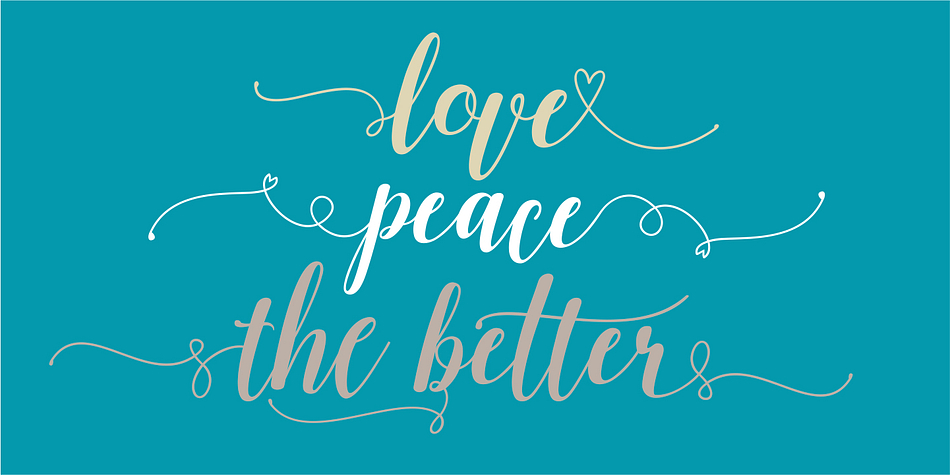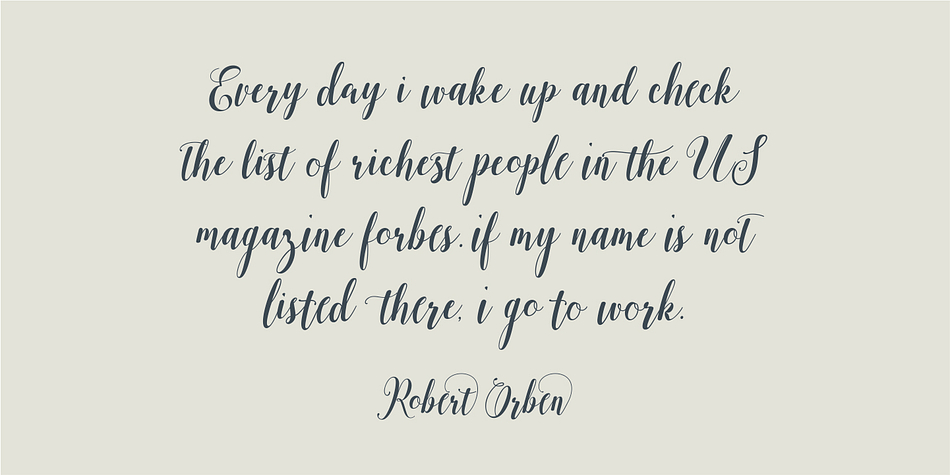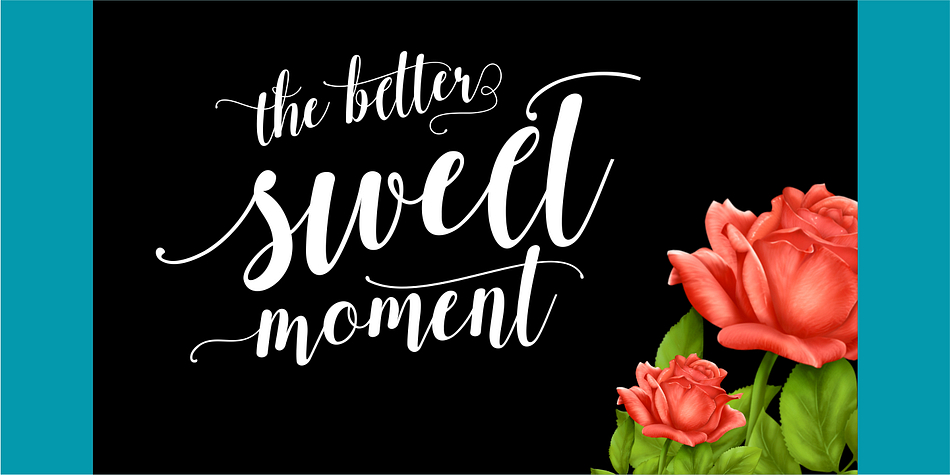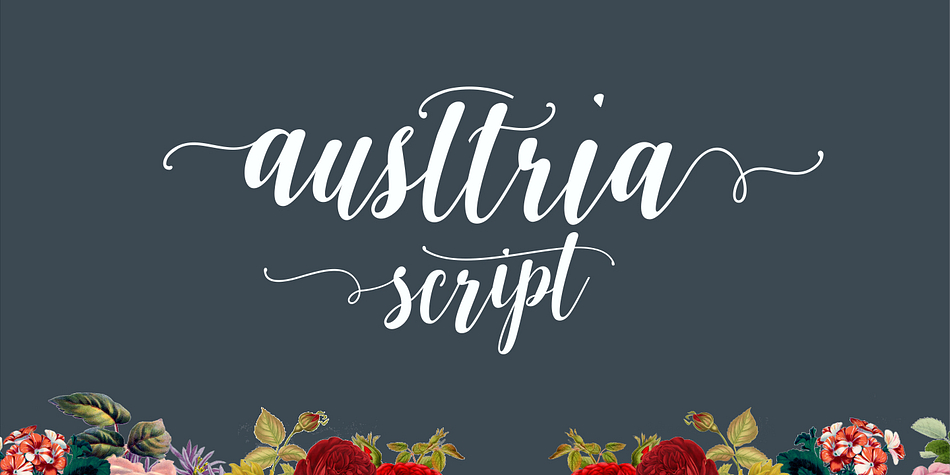
Austtria is a script and modern calligraphy font family. This typeface has two styles and was published by Genesislab.
The new fonts Austtria Script & Austtria Letter are 2 types of modern calligraphy. They can be used easily and simply with applications that support your work. These fonts are equipped with a full range of glyphs, stylistic alternates, terminal forms, initial forms, and ligatures.
These fonts match the growing market with the form of a cursive typeface design style that is soft. You can use them for a fun and feminine feeling. Austtria is trendy and a wonderful way to highlight your best party celebration. They are also suitable for wedding invitations, parties, graduations, birthdays, meetings, and other.